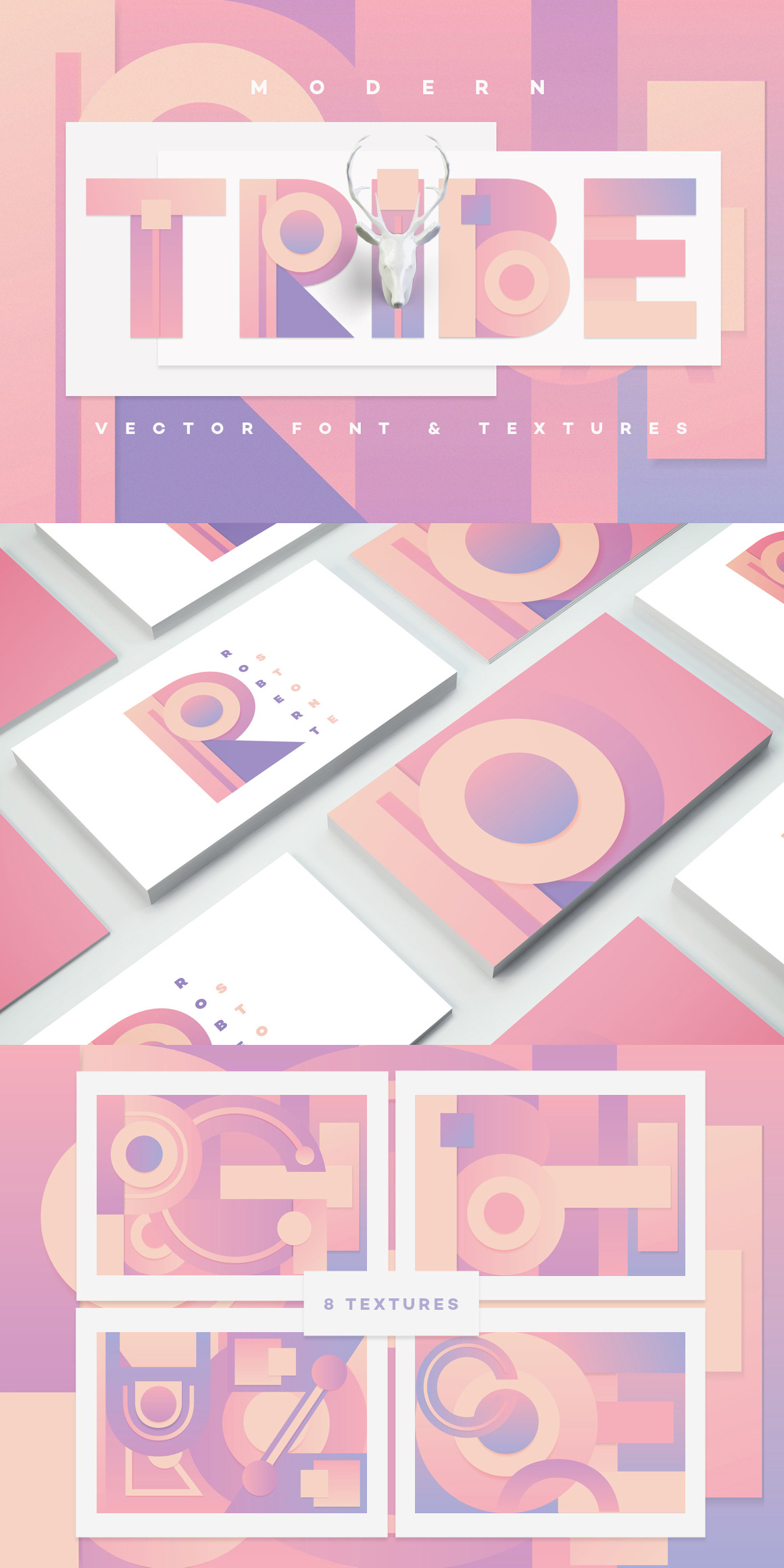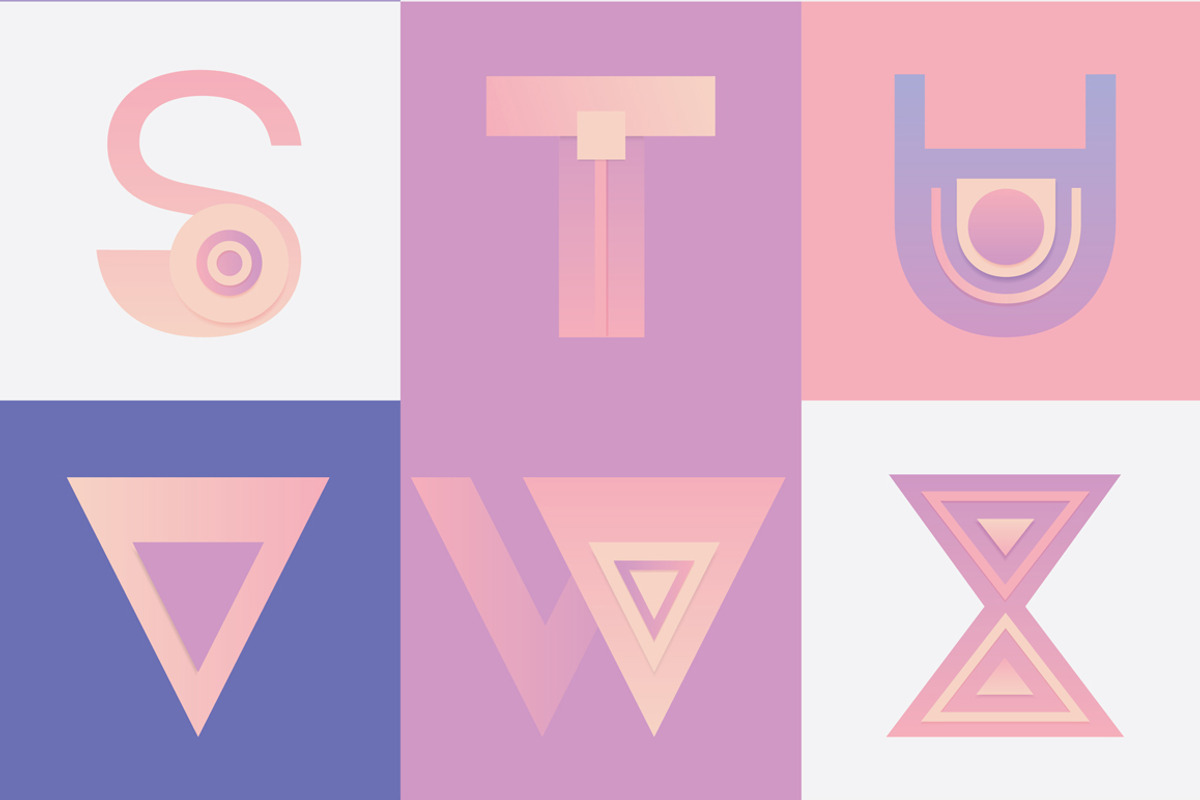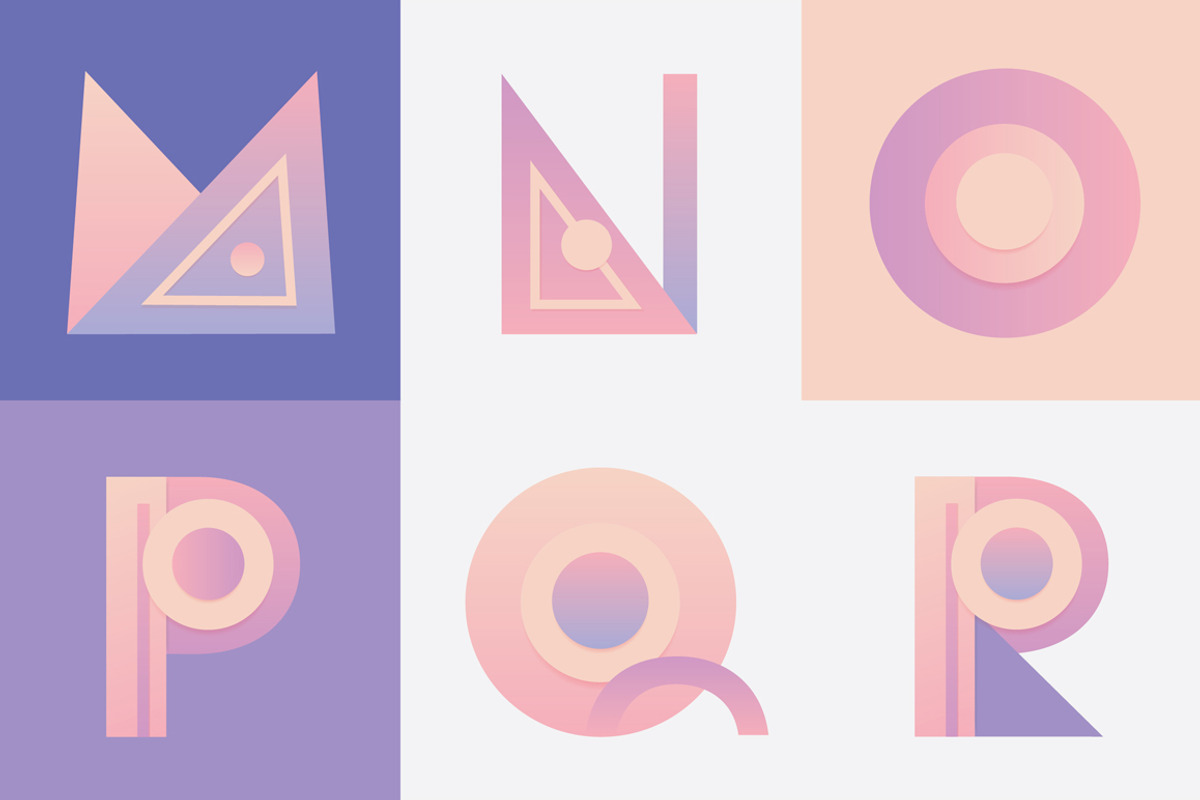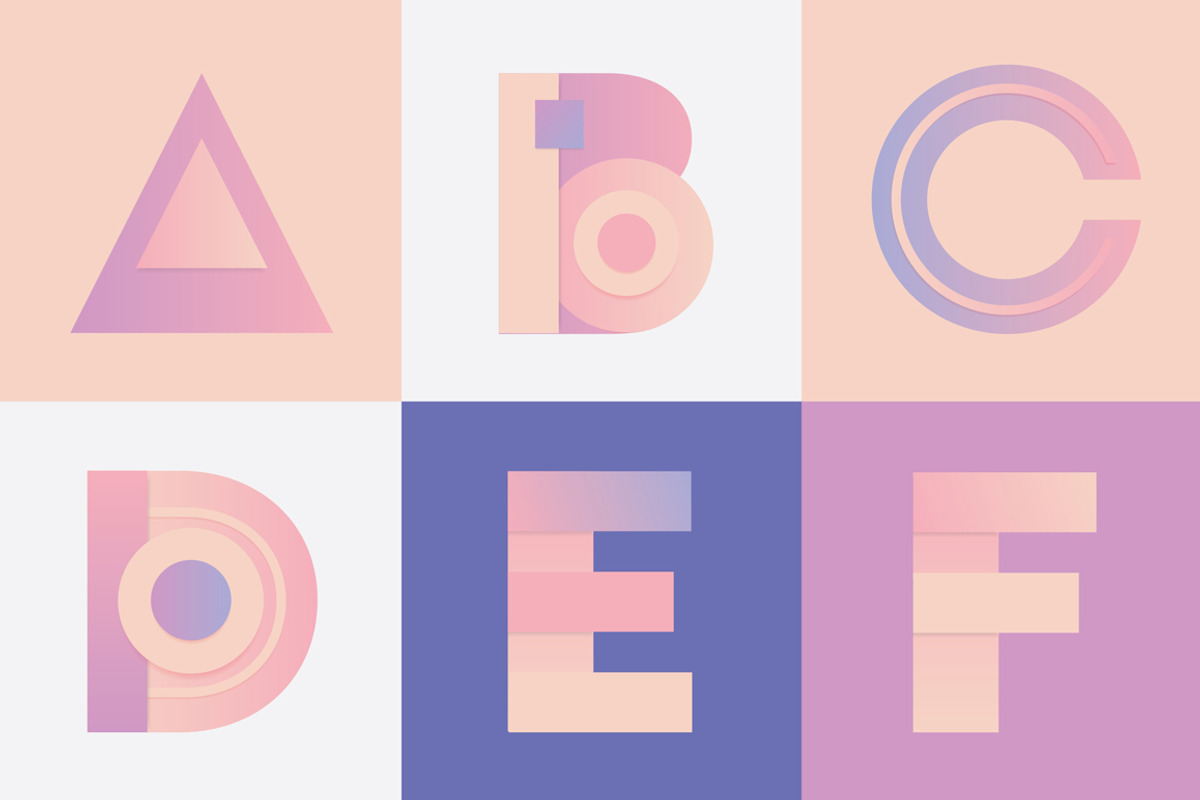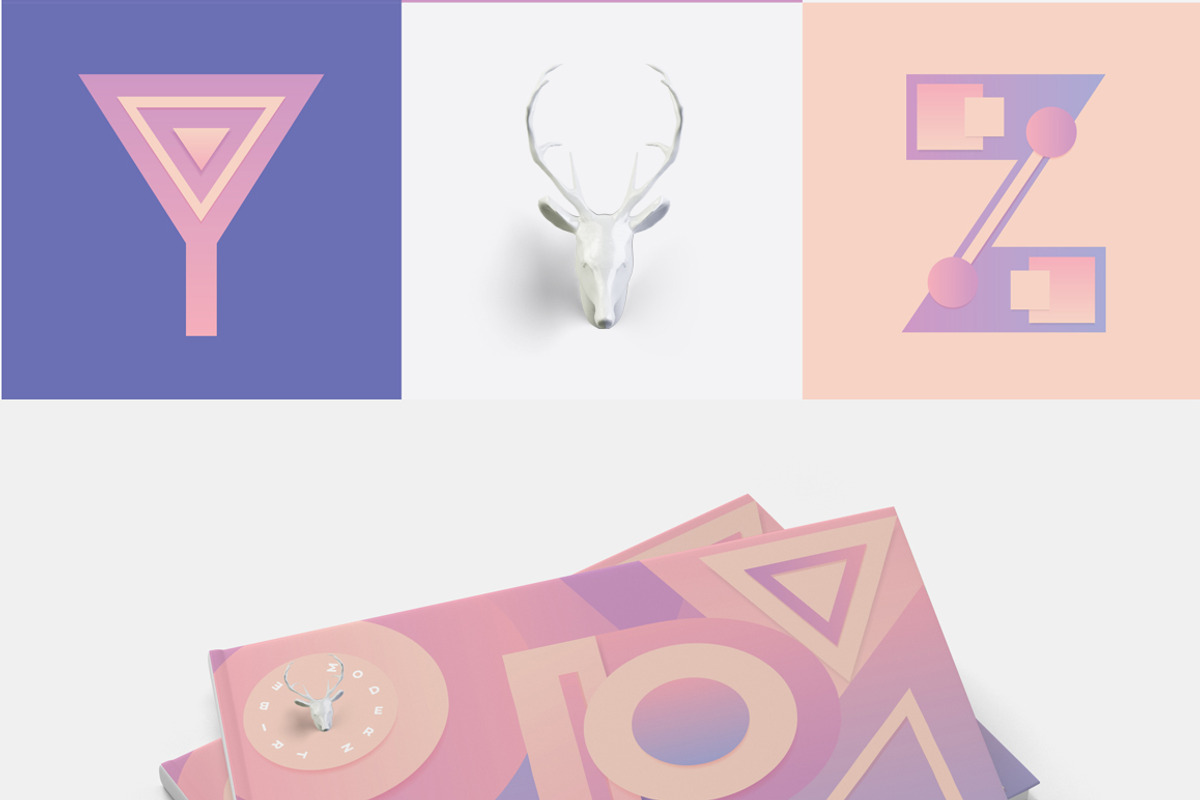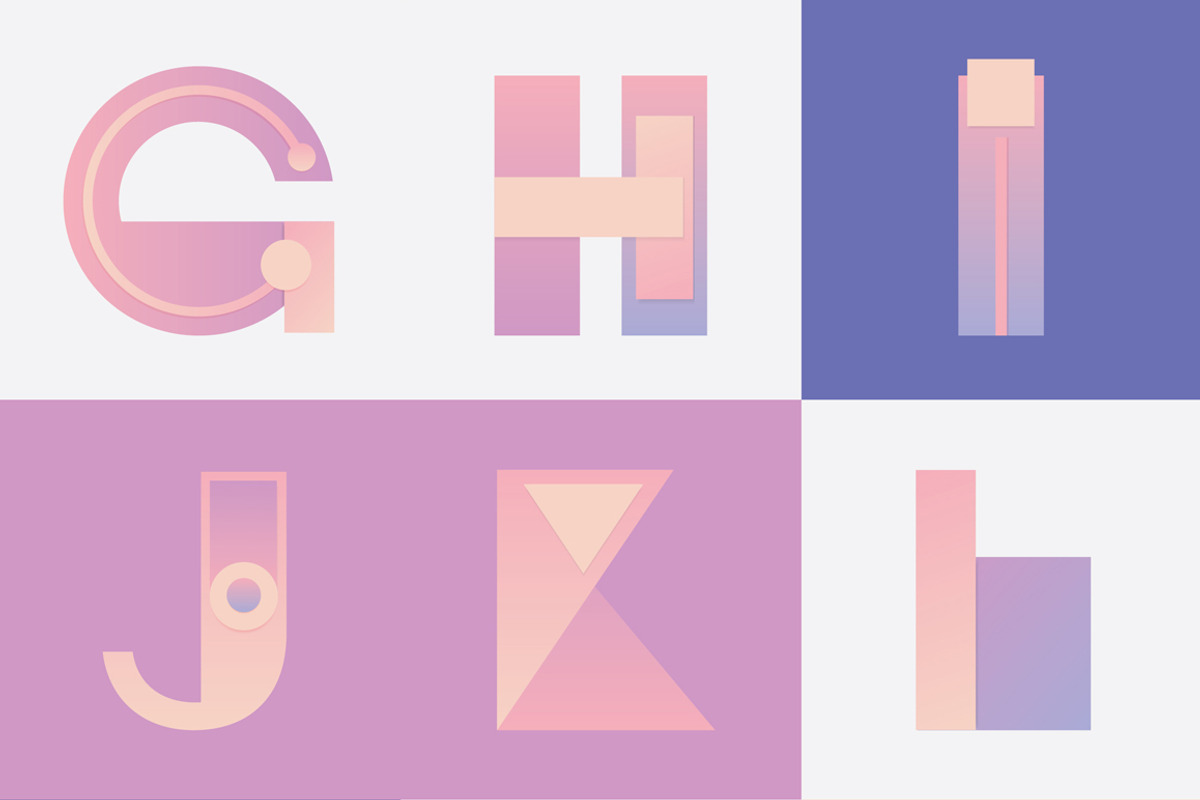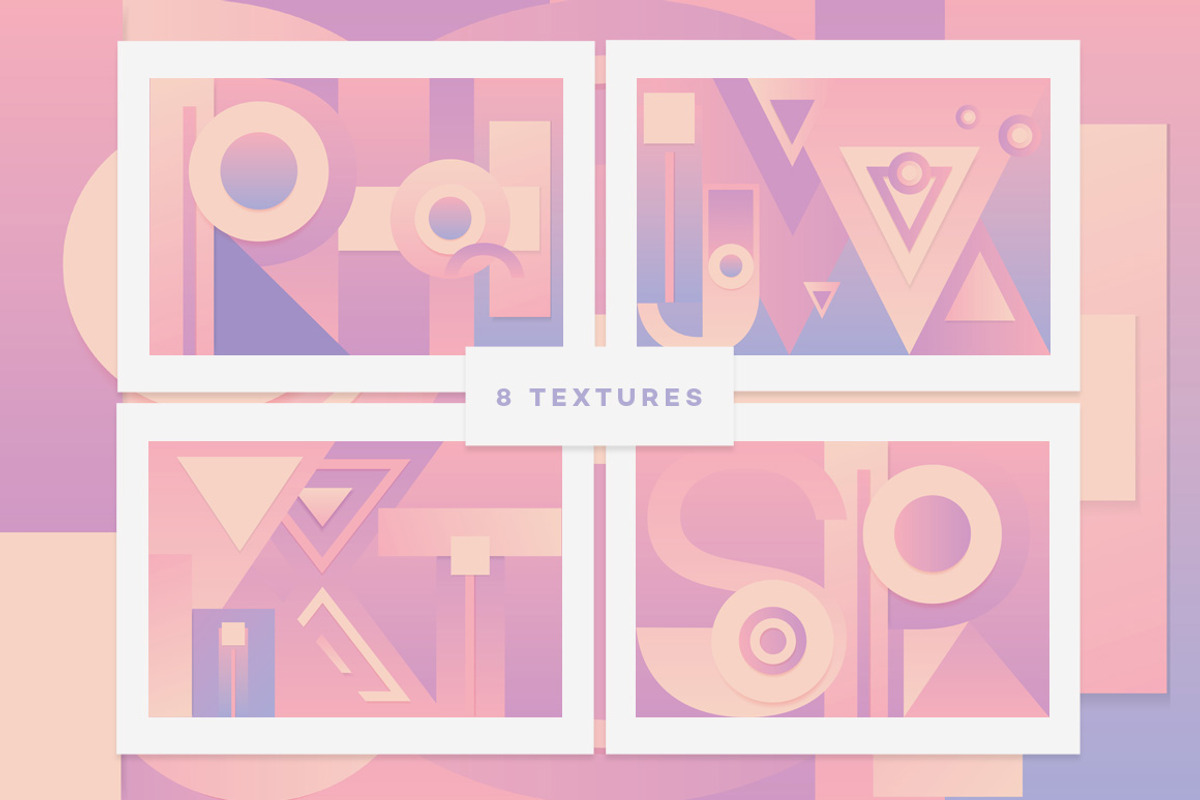
Modern Tribe vector font
MODERN TRIBE VECTOR FONT
Tribal styled font with a futuristic modern spin! Shaped with geometric elements with "native feel" in material design style, this font will work great in pattern designs, poster creations, branding, shirt designs and more.